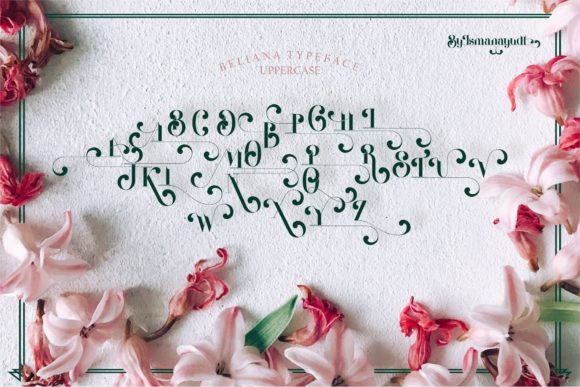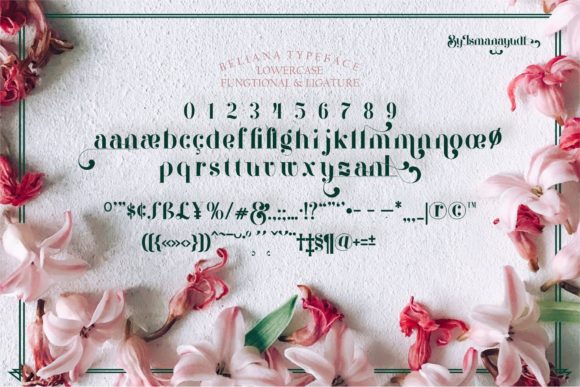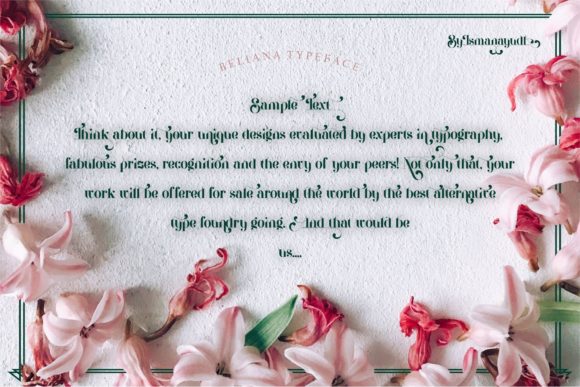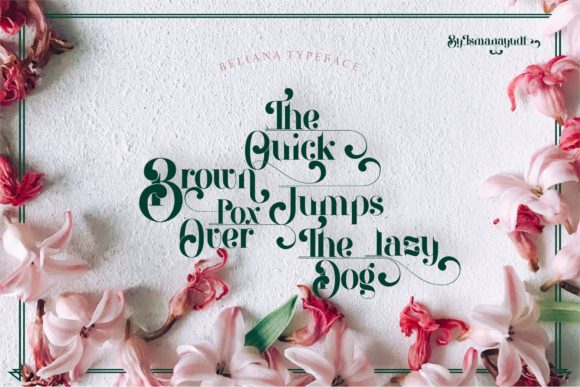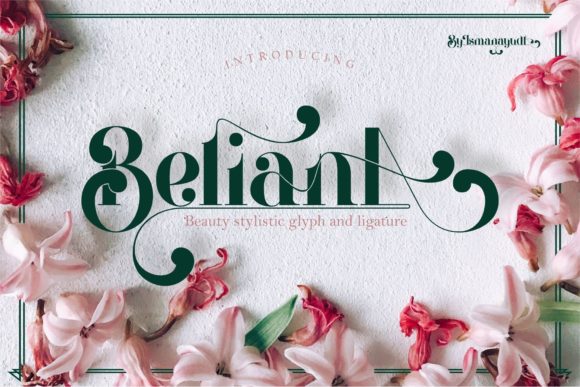
Discover the Elegance of Beliana Font: A Versatile Serif Beauty
In the realm of typography, few fonts manage to capture the essence of elegance and versatility as effectively as the Beliana font. This beautiful serif font, with its unique style, has been making waves among designers and crafters alike, offering a wide array of creative possibilities. From sophisticated letterheads and captivating titles to charming stationery, Beliana font is rapidly becoming the go-to choice for those looking to add a touch of class to their projects.
What Makes Beliana Font Stand Out?
Beliana’s distinctiveness lies in its thoughtful design, which strikes a perfect balance between classic serif elements and modern flair. The font features well-defined lines, elegant curves, and a harmonious structure that lends itself beautifully to various design applications. Whether you’re working on a formal business document or a more artistic endeavor, Beliana’s adaptability makes it an excellent choice.
Key Features of Beliana Font
- Unique Serif Style: Beliana boasts a distinctive serif style that sets it apart from more traditional serif fonts. Its subtle yet pronounced serifs add a layer of sophistication to any text.
- Versatility: One of Beliana’s most significant advantages is its versatility. It can seamlessly transition from formal settings, such as in legal documents or corporate branding, to more creative applications like invitations, posters, and digital media.
- Elegant and Readable: The font’s design prioritizes readability without sacrificing style. This makes it perfect for both digital and print media, ensuring your message is conveyed with clarity and impact.
- Crafty Ideas: Beliana’s aesthetic lends itself to a myriad of crafty ideas. Designers can explore various textures, colors, and compositions to create visually stunning pieces that stand out.
Applications of Beliana Font
The applications of Beliana font are as varied as they are exciting. Here are a few ideas to get you started:
- Letterheads and Stationery: Add a professional touch to your business correspondence with Beliana’s elegant and authoritative style.
- Titles and Headings: Use Beliana to create eye-catching titles and headings for presentations, reports, and marketing materials.
- Digital Media: Beliana’s readability and style make it an excellent choice for website content, blogs, and social media graphics.
- Art and Craft Projects: Explore the creative potential of Beliana in art journals, scrapbooking, and handmade cards.
Tips for Using Beliana Font Effectively
To make the most of Beliana font, consider the following tips:
- Pair with Complementary Fonts: Combine Beliana with sans-serif fonts for contrast and visual interest.
- Experiment with Colors: While Beliana looks stunning in black, don’t be afraid to experiment with colors that match your brand or project’s aesthetic.
- Play with Sizes: Use varying sizes to create hierarchy and emphasis in your designs.
Beliana font is a game-changer for designers and crafters looking for a versatile, elegant, and unique serif font. Its wide range of applications, from formal documents to creative projects, makes it an invaluable addition to any design toolkit. With Beliana, you can elevate your designs, enhance readability, and add a touch of sophistication to your work. Whether you’re a seasoned professional or a hobbyist, Beliana font is sure to inspire and empower your creative endeavors.